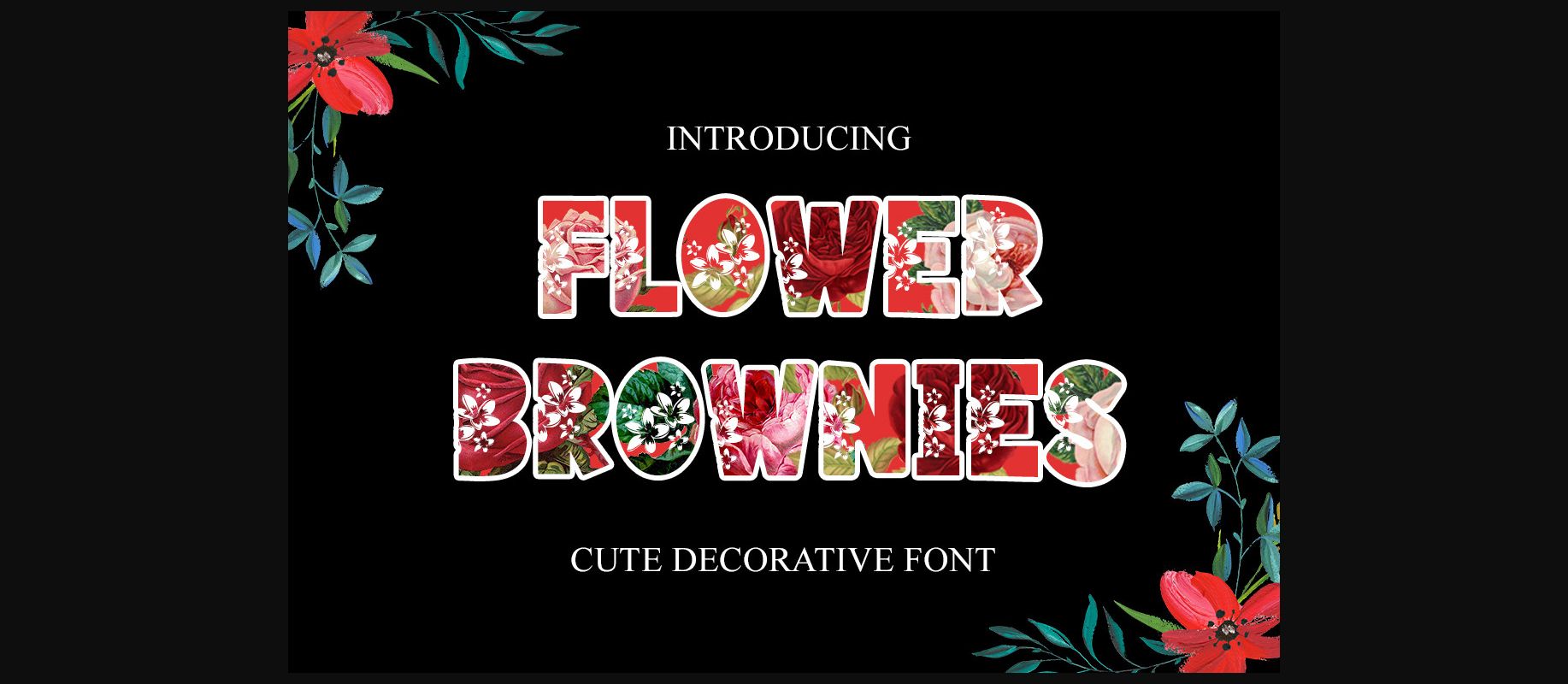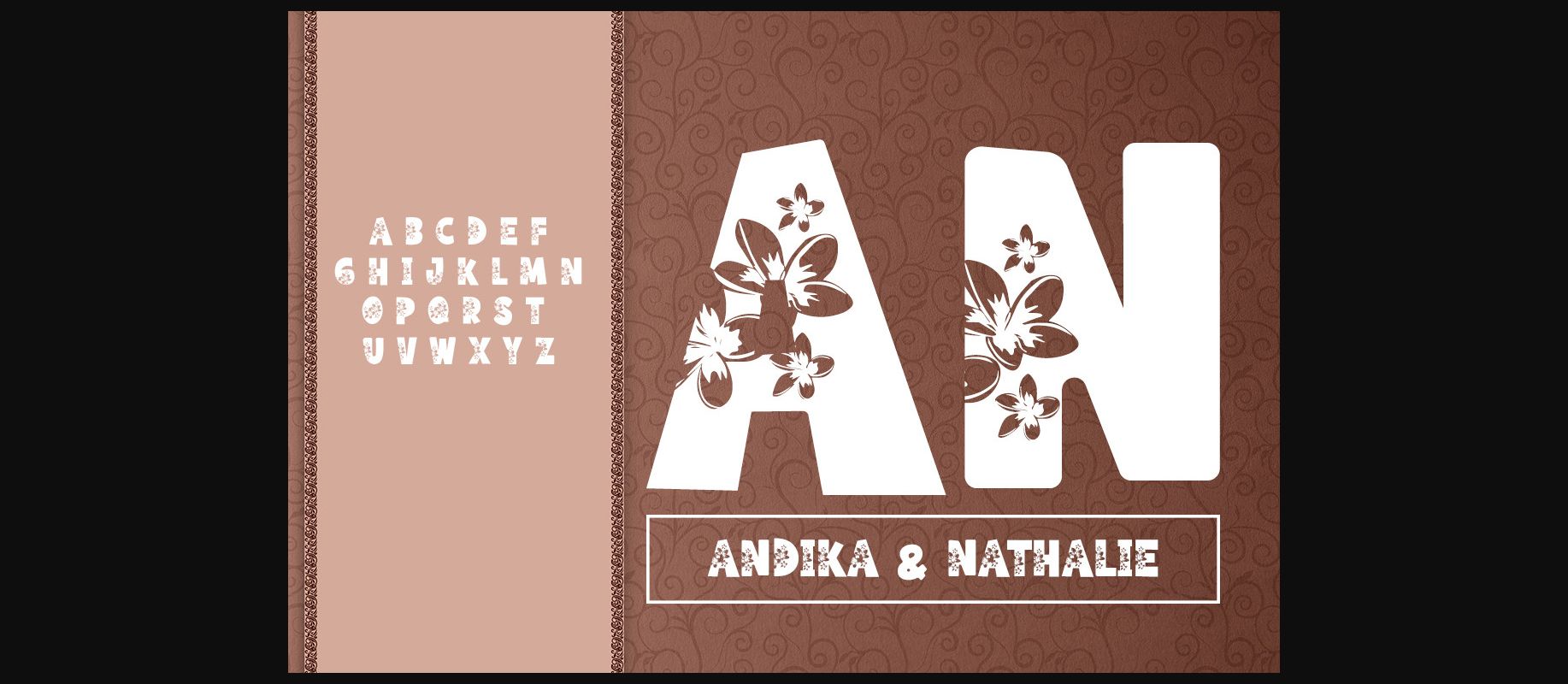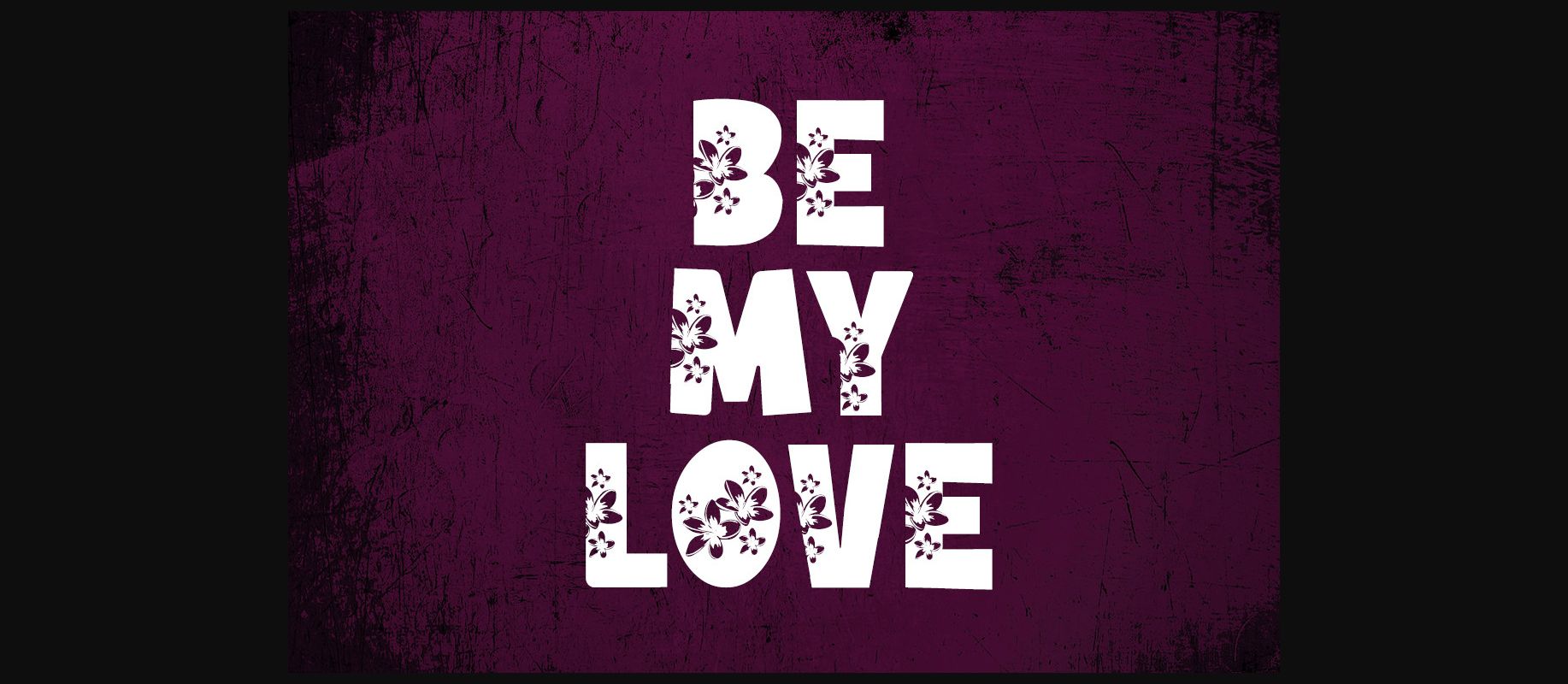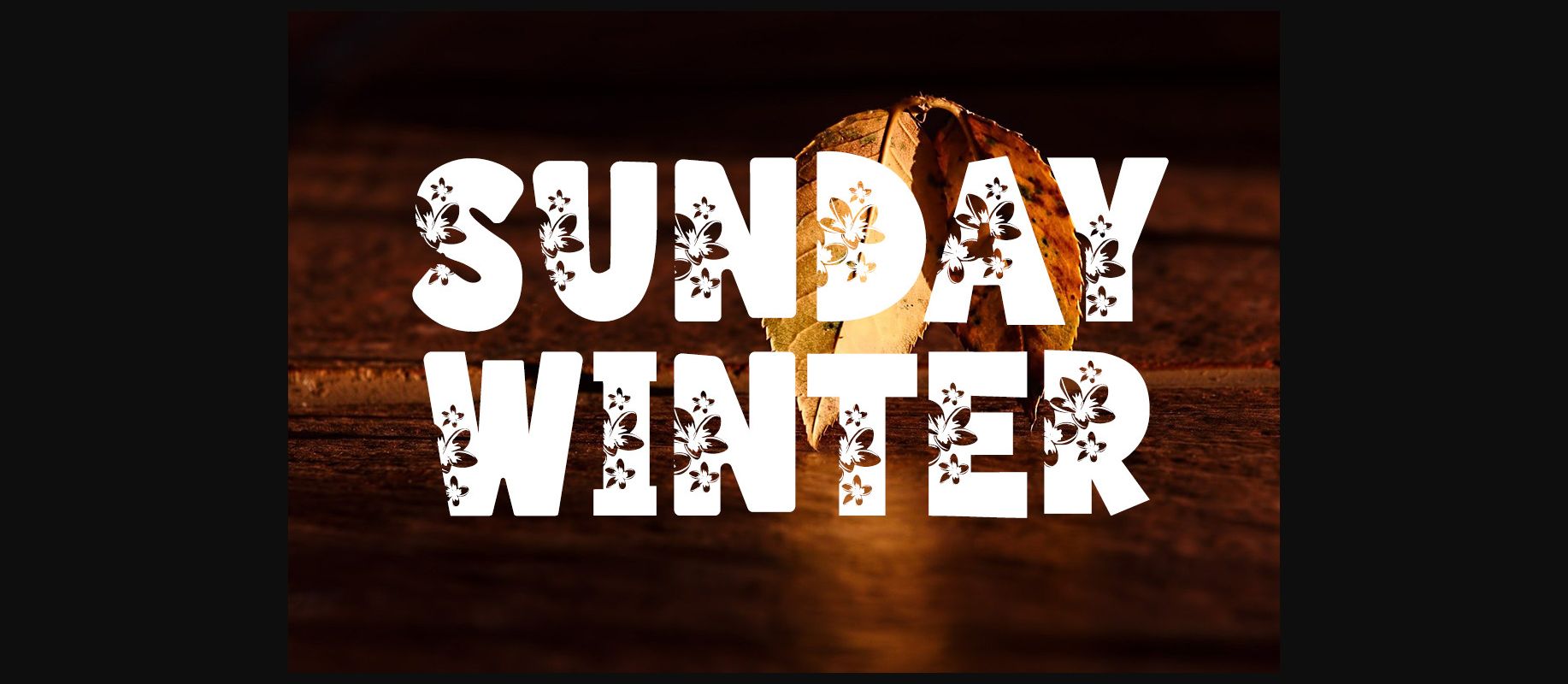
Flower Brownies is a beautiful and sweet font. It is fresh, clean, and quirky. This font will look amazing in a great number of projects, both formal and informal. It will add an incredibly joyful touch to your designs.